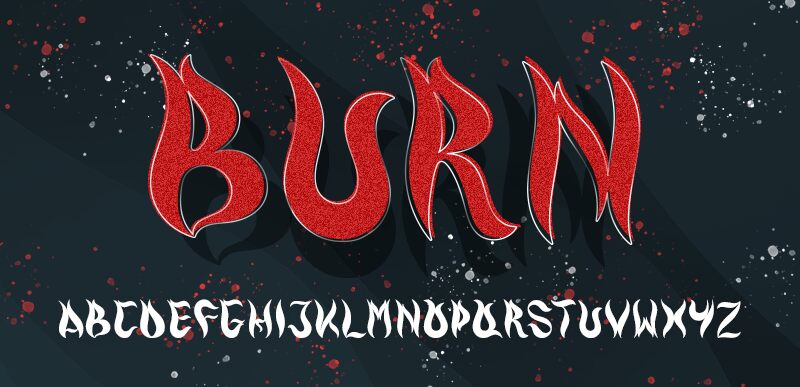
Burn
Burn font is a decorative / flame typeface designed by Biroakakarati.
This is the most dangerous font like a flame! My name is BURN! ??
Use me for a hot scene!